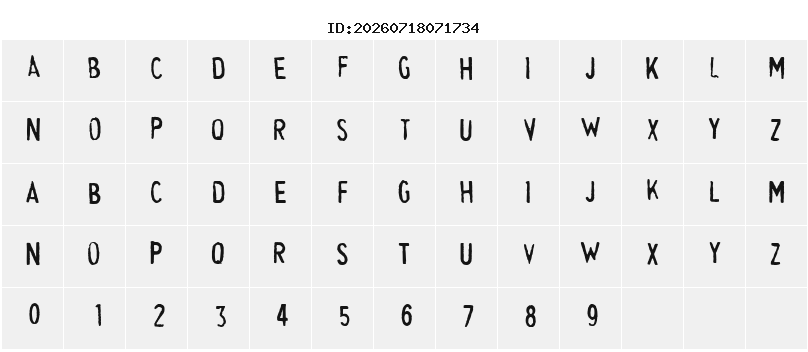
Cheapskate Fill Preview
• Font Name: Cheapskate Fill
• Font Style: Fill
• Full Font Name: Cheapskate Fill
Cheapskate Fill.ttf is a modern, elegant sans-serif font designed for ultimate readability and visual harmony. Perfect for branding, headlines, web design, and print materials.